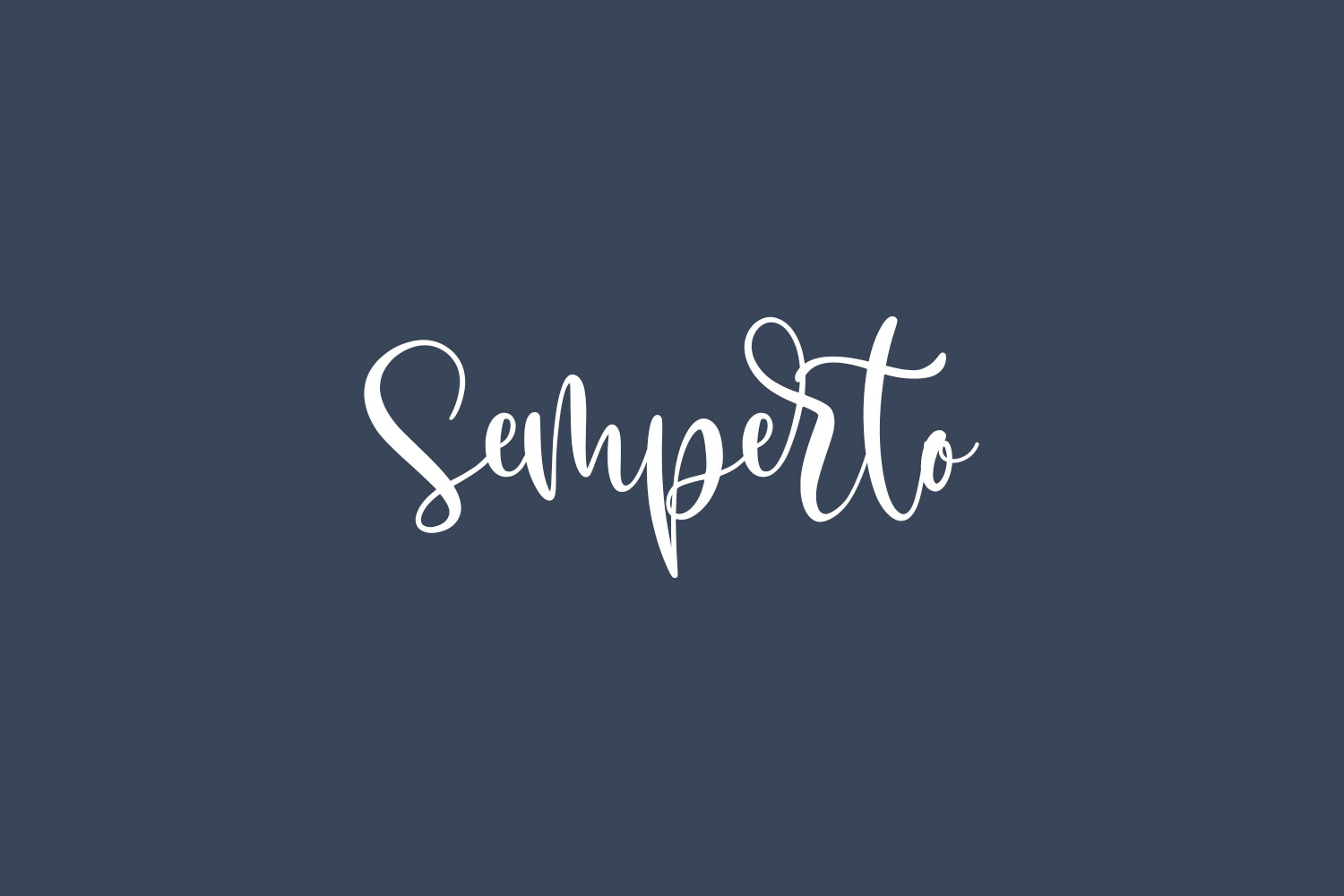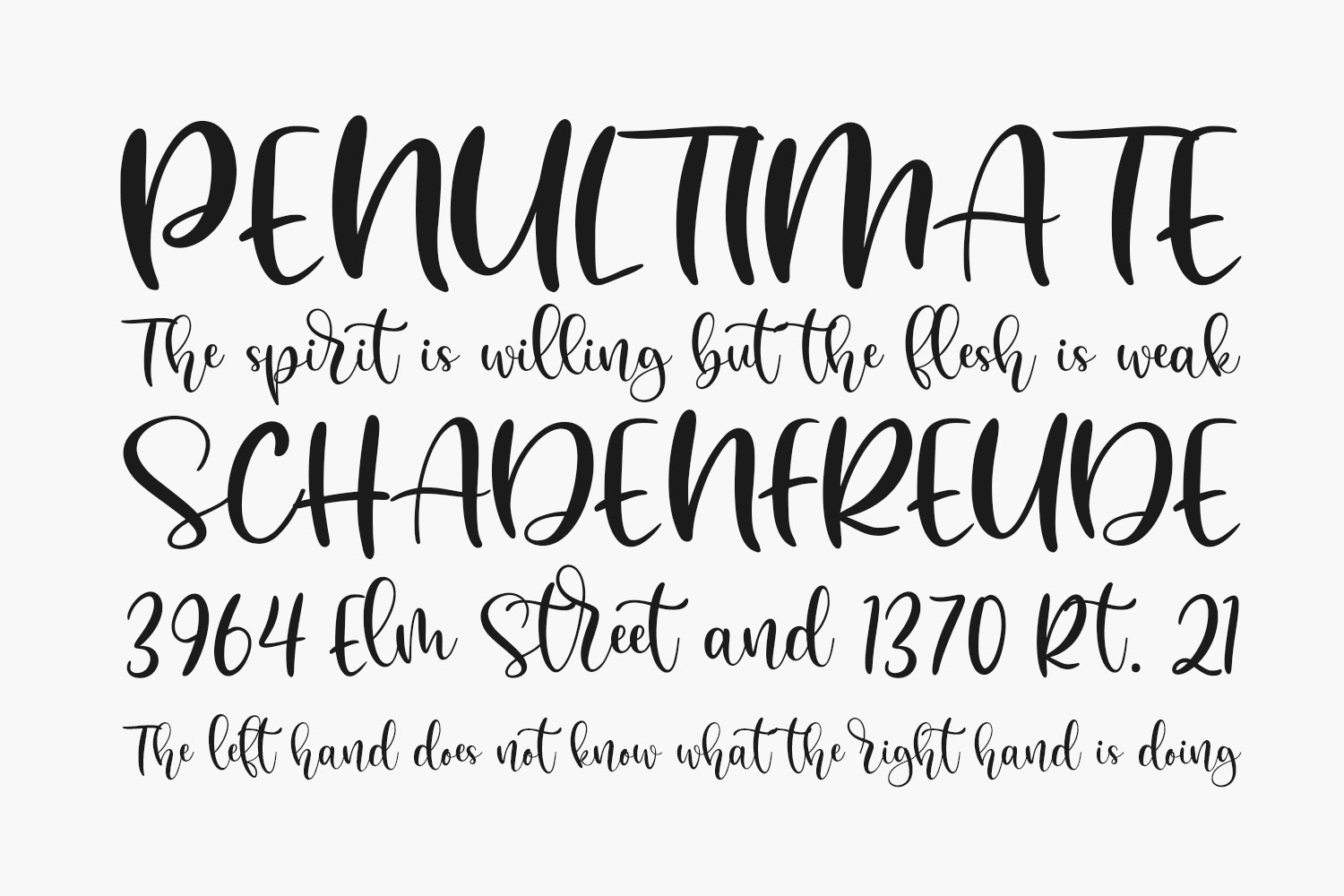
Semperto Free Font is a romantic and sweet calligraphy typeface with characters that dance along the baseline. It will add a luxury spark to any design project that you wish to create. Semperto Free Font was designed by HansCo and is free for personal use only. Please purchase the full version for commercial use.